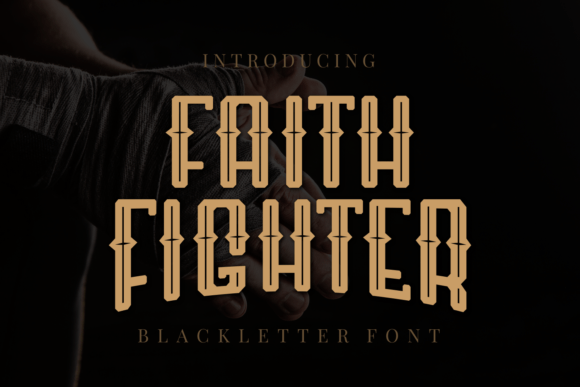
The Faith Fighter Font: A Bold and Symbolic Typeface for Creative Projects
I still remember the design project that led me to discover the Faith Fighter font. I was working on a branding campaign for a new church, and I was struggling to find the right font that would convey the sense of reverence and power I wanted to evoke. That’s when I stumbled upon Faith Fighter, a bold blackletter font that incorporates subtle cross-like shapes within its letterforms. It was love at first sight! 💕
- ✨ The unique design element of cross-like shapes within the letterforms adds a symbolic, spiritual touch to any project.
- ✅ The bold and strong appearance of Faith Fighter makes it perfect for headlines, titles, and emphasis.
- 💯 The font is versatile enough for various applications, including branding, apparel, and religious artwork.
- 🎨 The font’s Gothic-inspired design gives it a timeless and classic look that never goes out of style.
While Faith Fighter is an amazing font, there are a few things to keep in mind:
- 🤔 The font’s bold design can be overwhelming if used excessively or in small sizes.
- ⚠️ Some of the cross-like shapes within the letterforms can be quite subtle, so it’s essential to examine the font closely to appreciate its unique features.
The Faith Fighter font was designed with the intention of creating a bold and symbolic typeface that would evoke a sense of faith and power. The designer wanted to combine the strength and tradition of blackletter typography with a subtle, spiritual touch. The result is a font that’s both timeless and modern, with a unique design element that sets it apart from other fonts.
Q: What is the Faith Fighter font?
A: Faith Fighter is a bold blackletter font that incorporates subtle cross-like shapes within its letterforms.
Q: What is Faith Fighter suitable for?
A: Faith Fighter is versatile enough for various applications, including branding, apparel, and religious artwork.
Q: Is Faith Fighter easy to read?
A: Faith Fighter is a bold font that’s designed to make a statement. While it’s legible, it may not be the best choice for body text or small sizes.